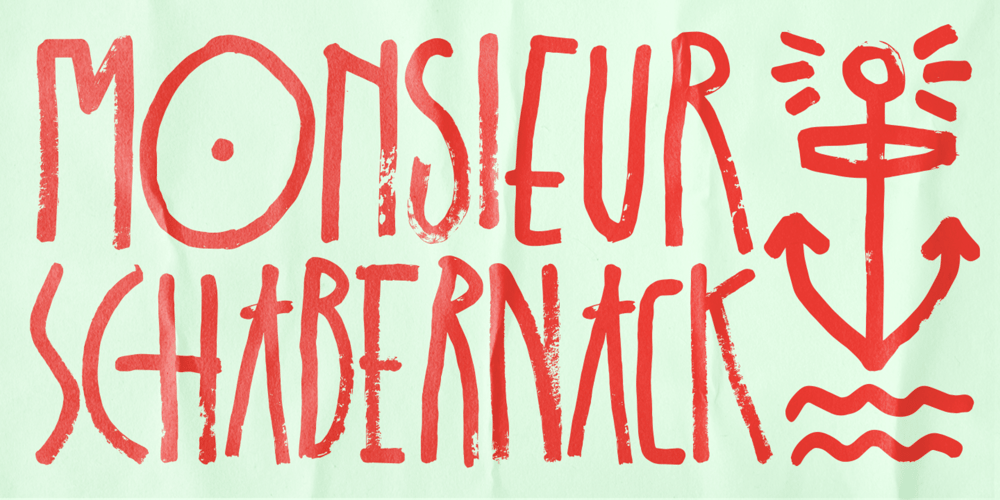
Schabernack One Font Family was designed by Christoph Zeugswetter and published by XTOPH. Schabernack One contains 1 styles and family package options. Schabernack One is a handwritten brushfont. If you are looking for a funky, doodle style fontface you have found it!